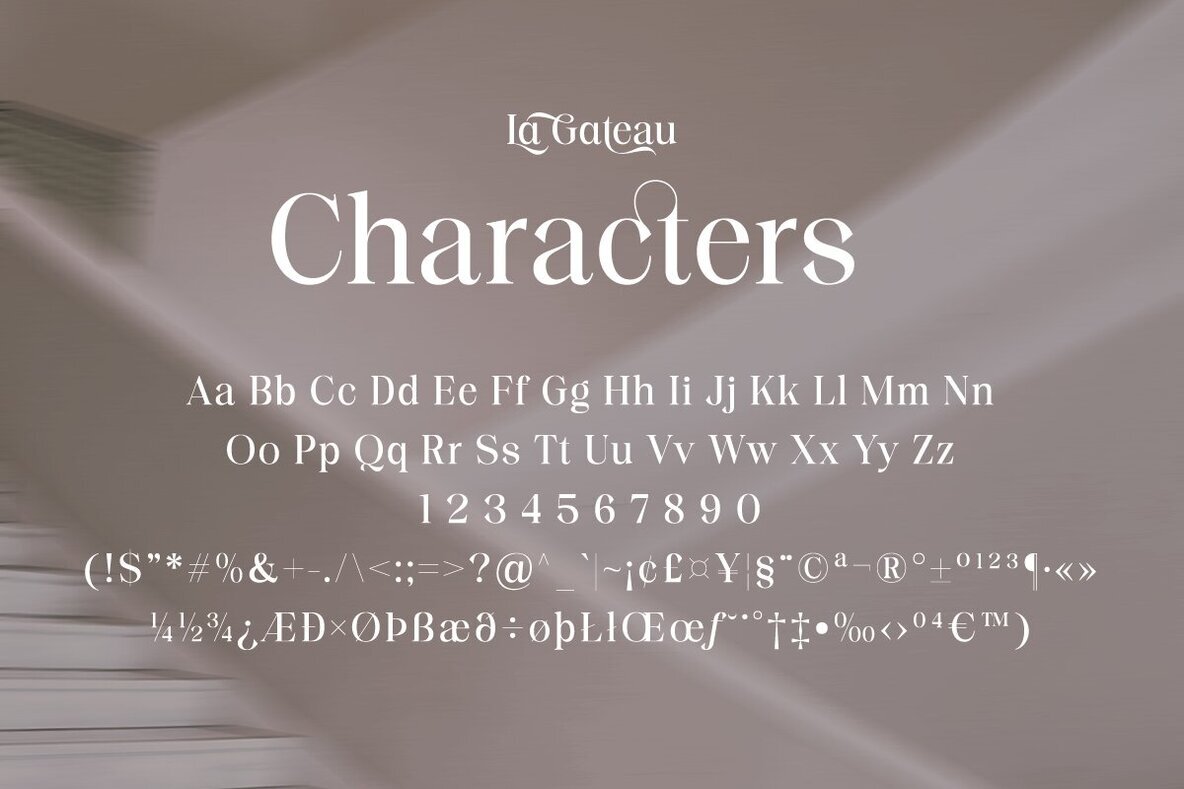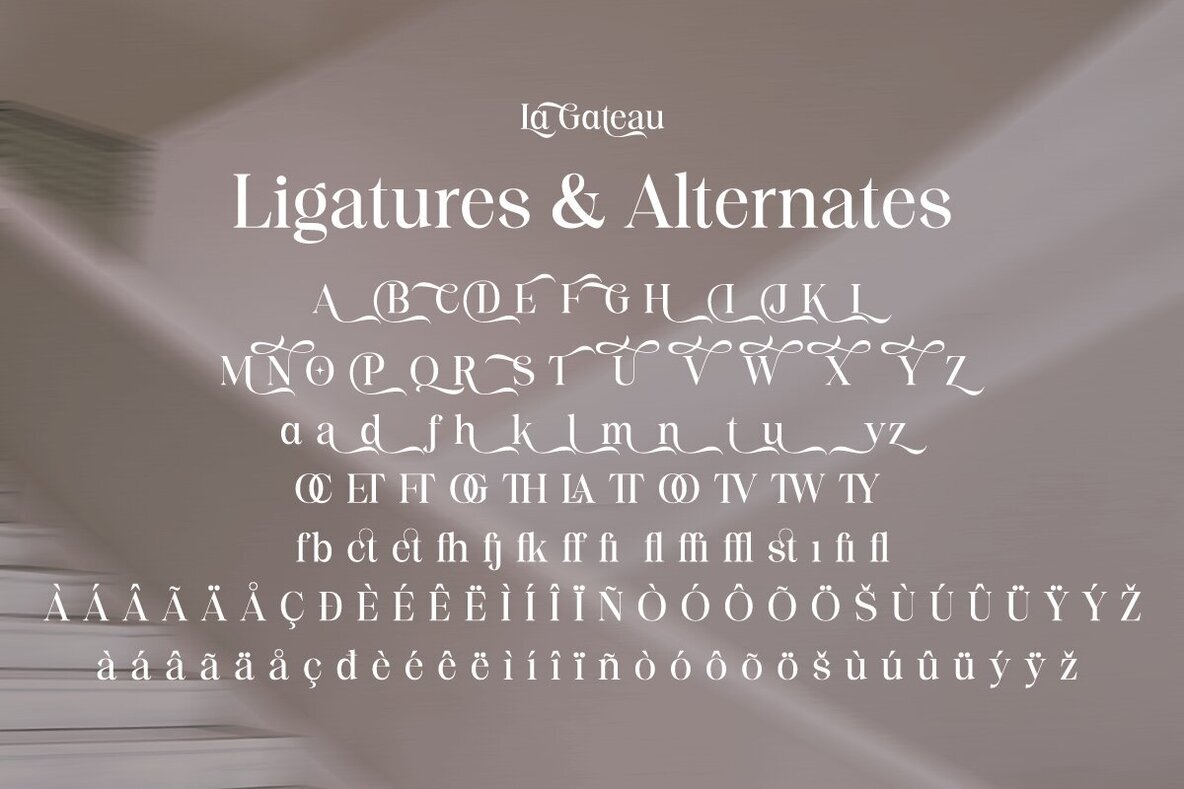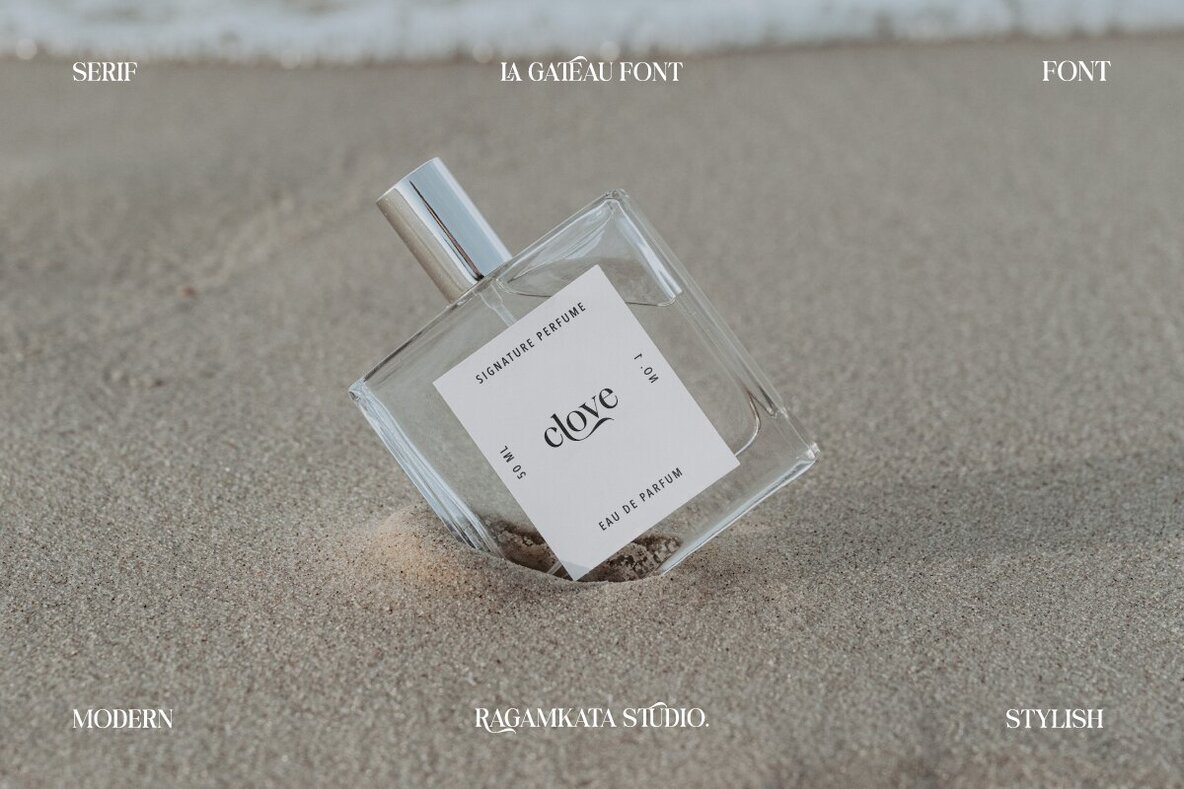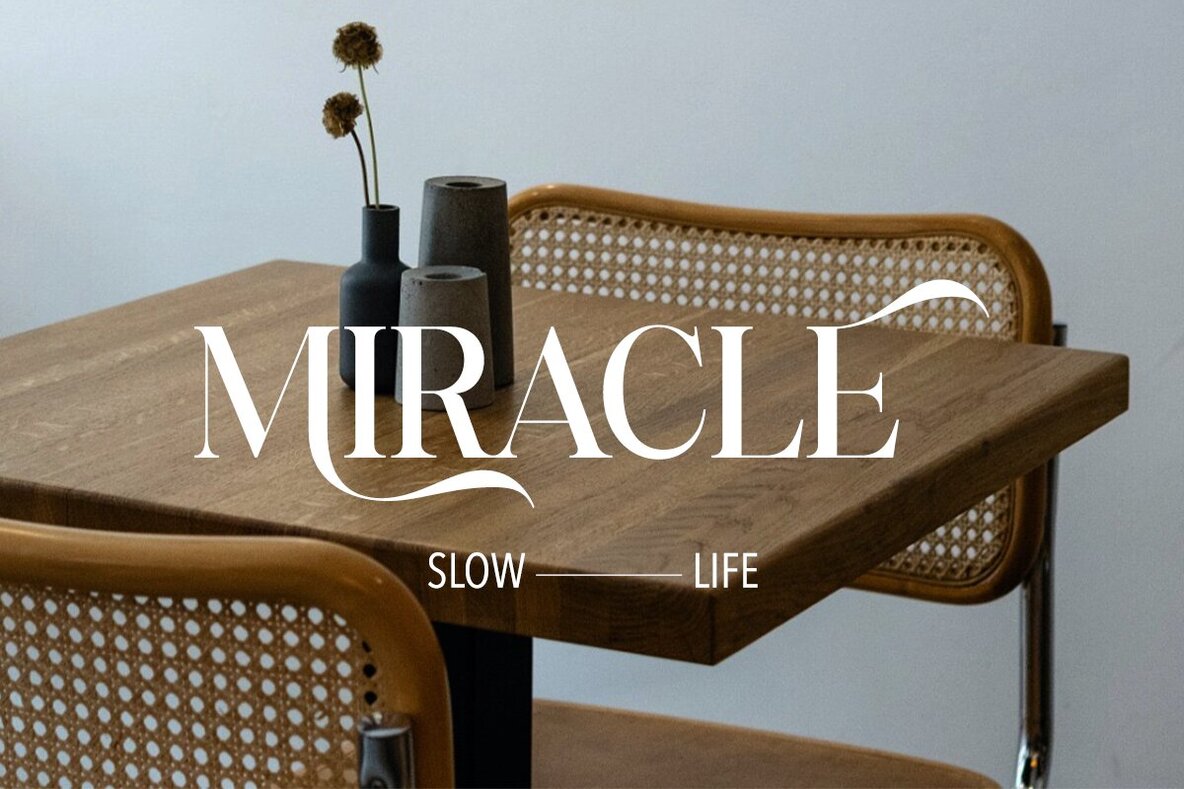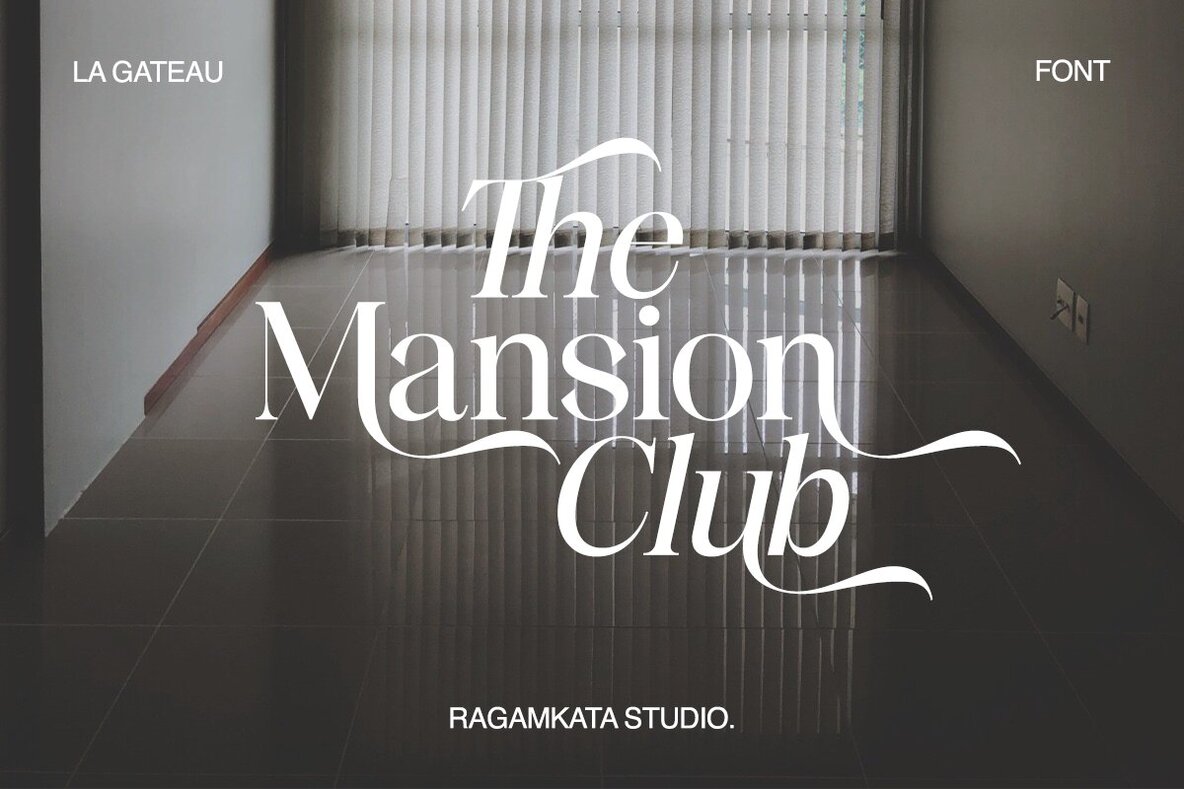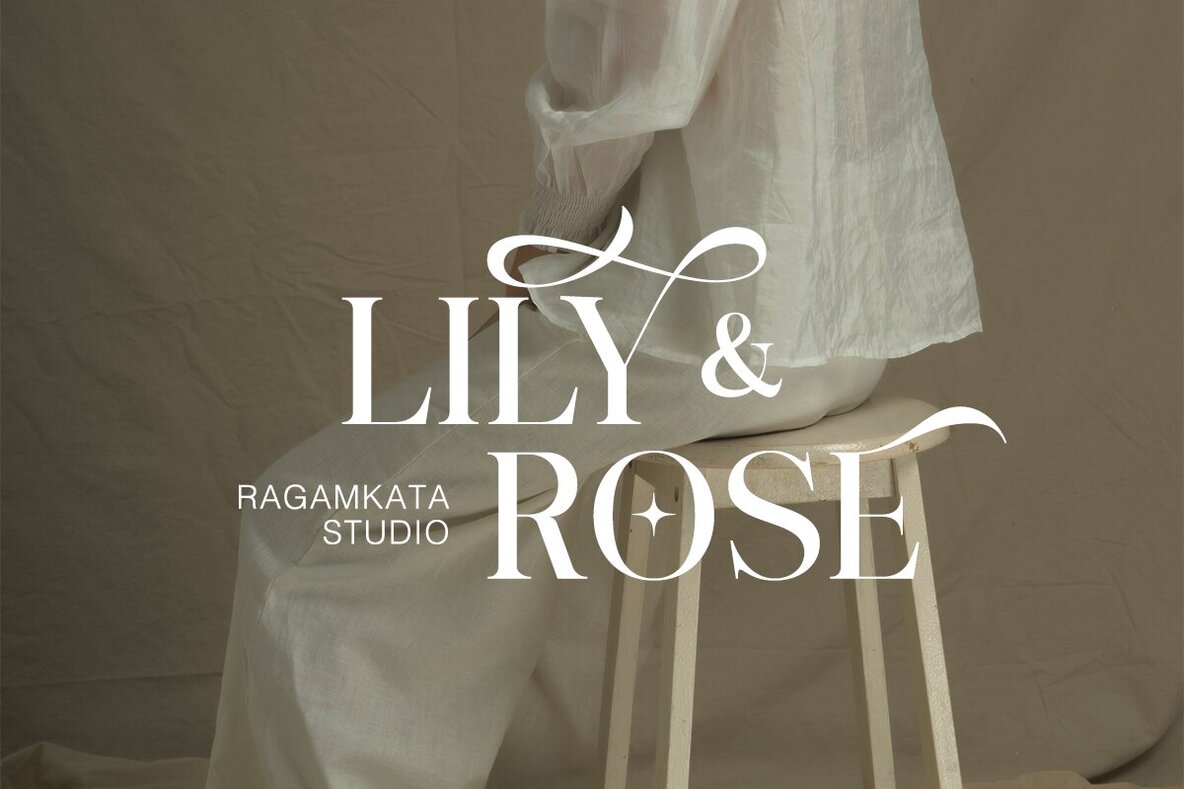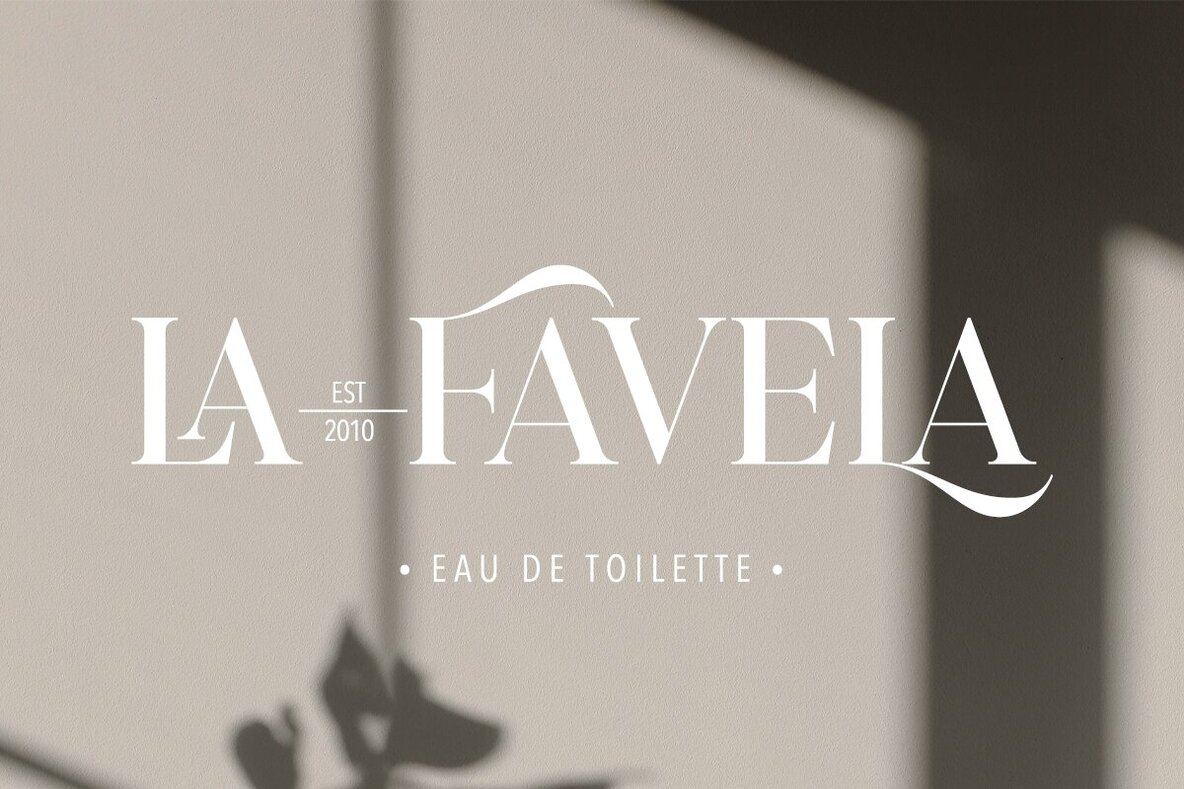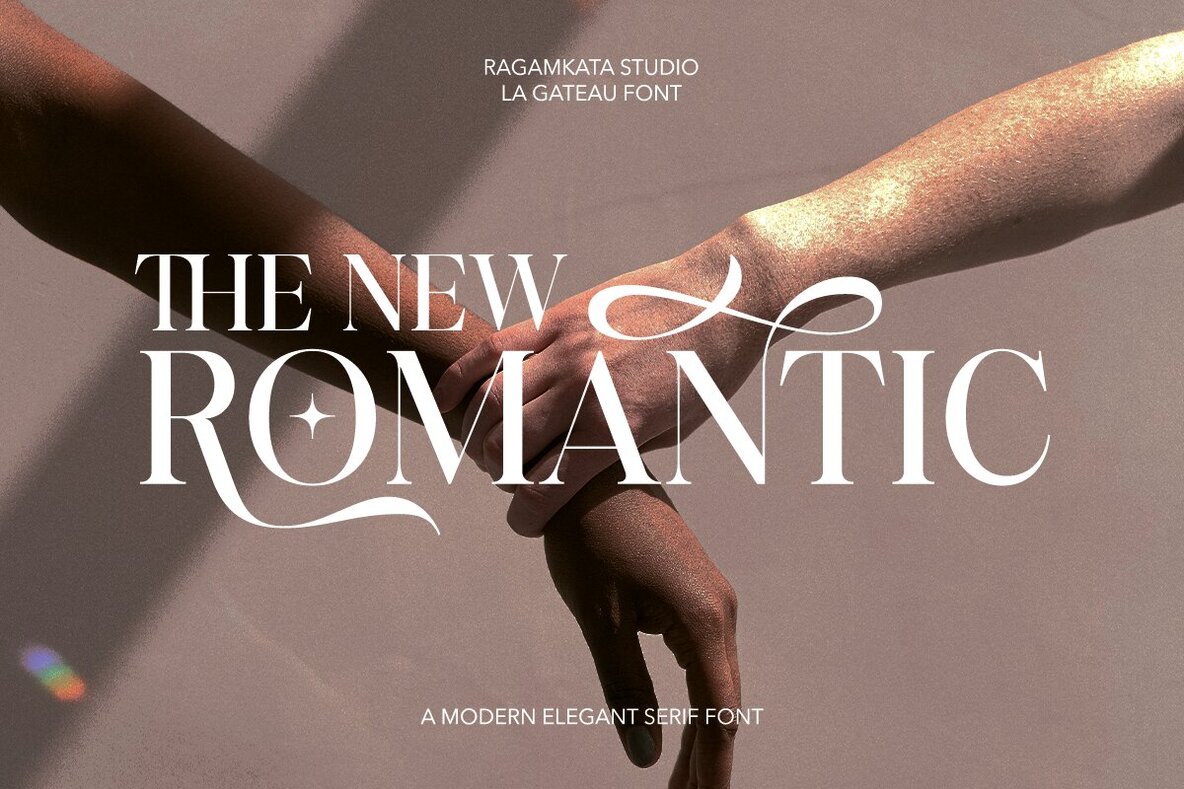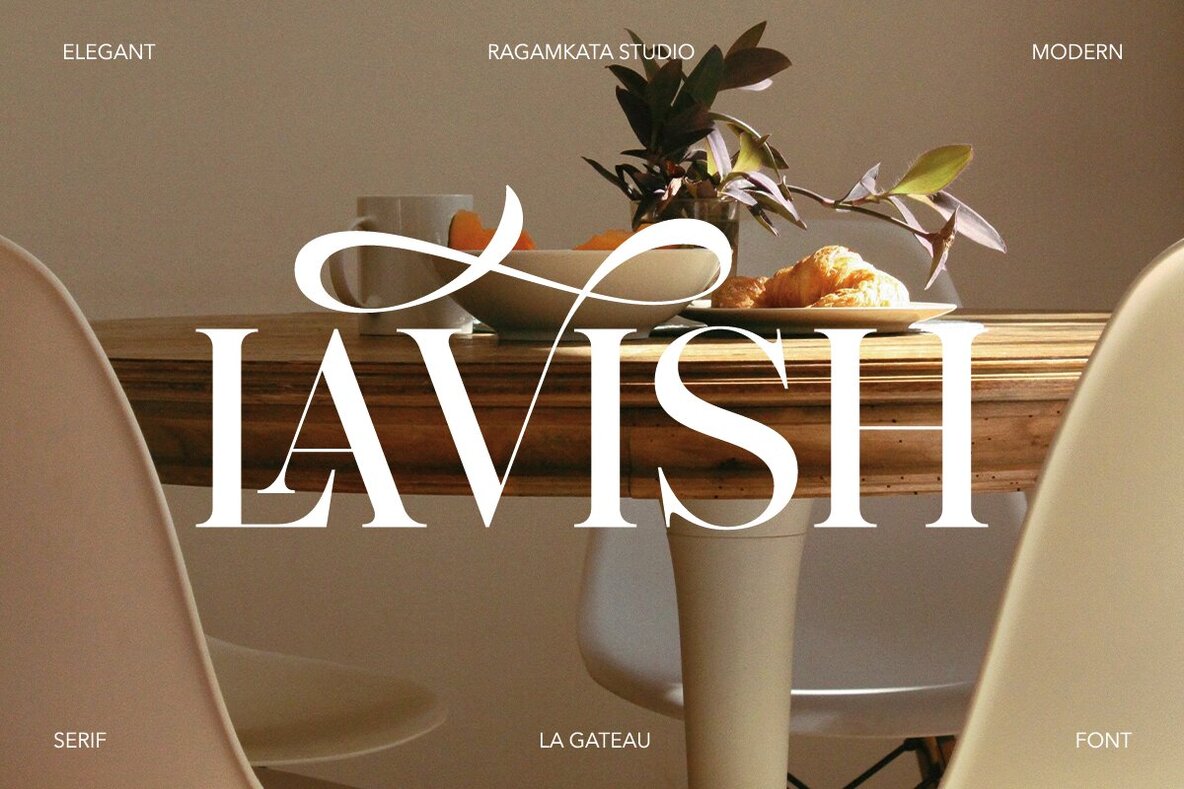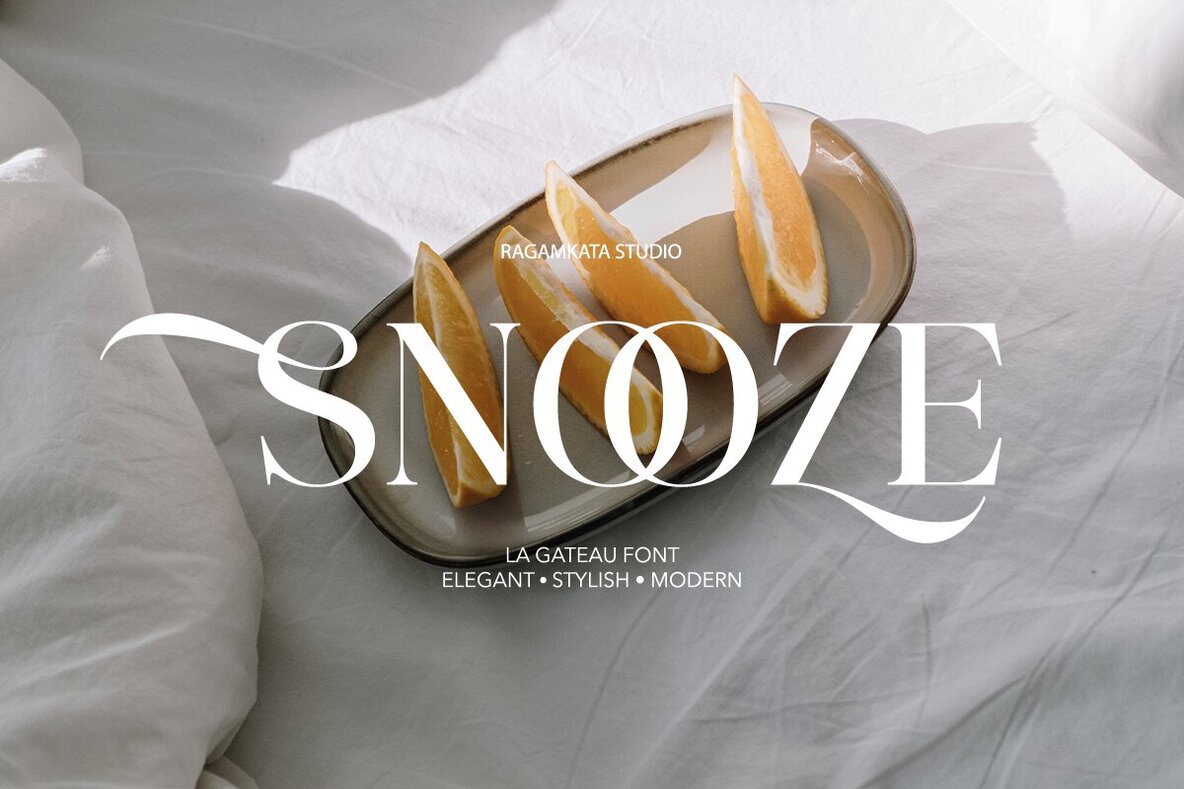
La gateau Font
La Gateau is a classic and elegant serif font tailored to elevate the aesthetics of your projects. Known for its stylish form and sophisticated ligatures, this typeface adds a touch of majesty to any design. Ideal for luxury logos, classy editorial designs, fashion branding, and promotional materials, La Gateau brings an aura of refinement to your work. For any inquiries, feel free to contact us. Visit Ragamkata Studio for more exclusive fonts. Enjoy crafting and bringing your ideas to life!La Gateau: A Graceful Serif for Luxurious Designs
Features of La Gateau